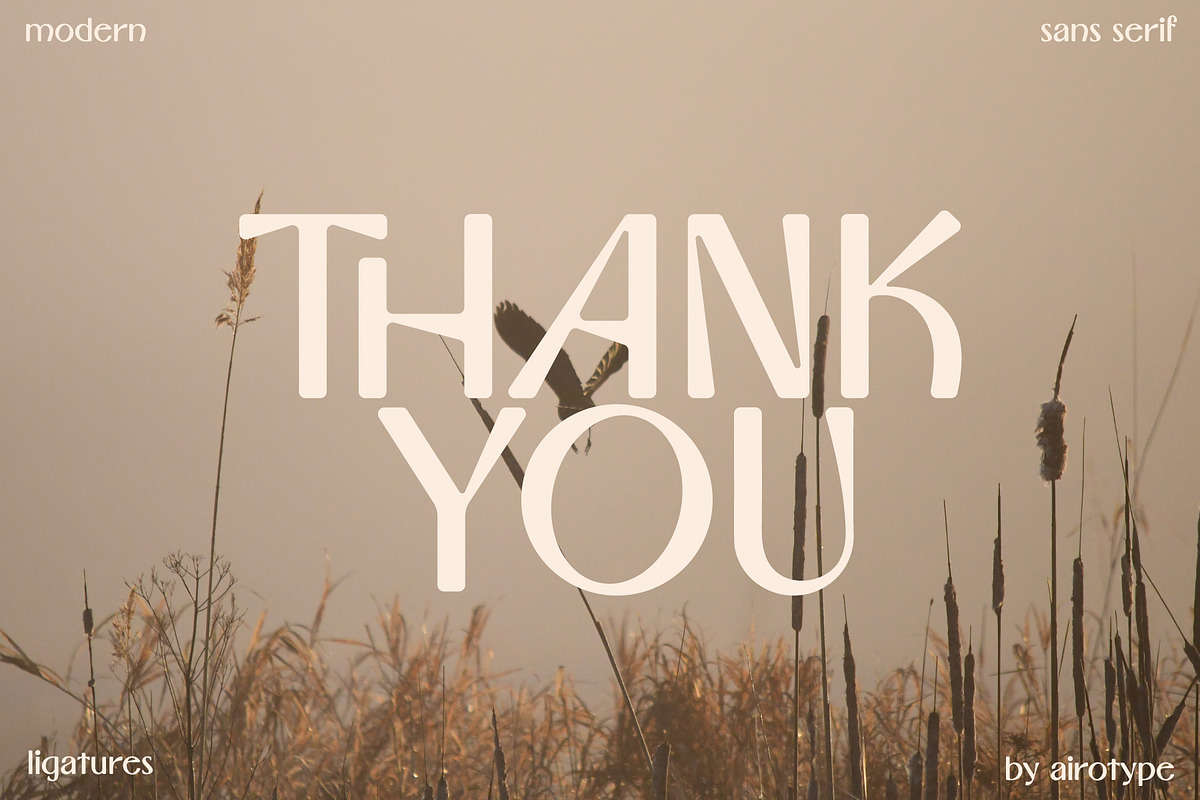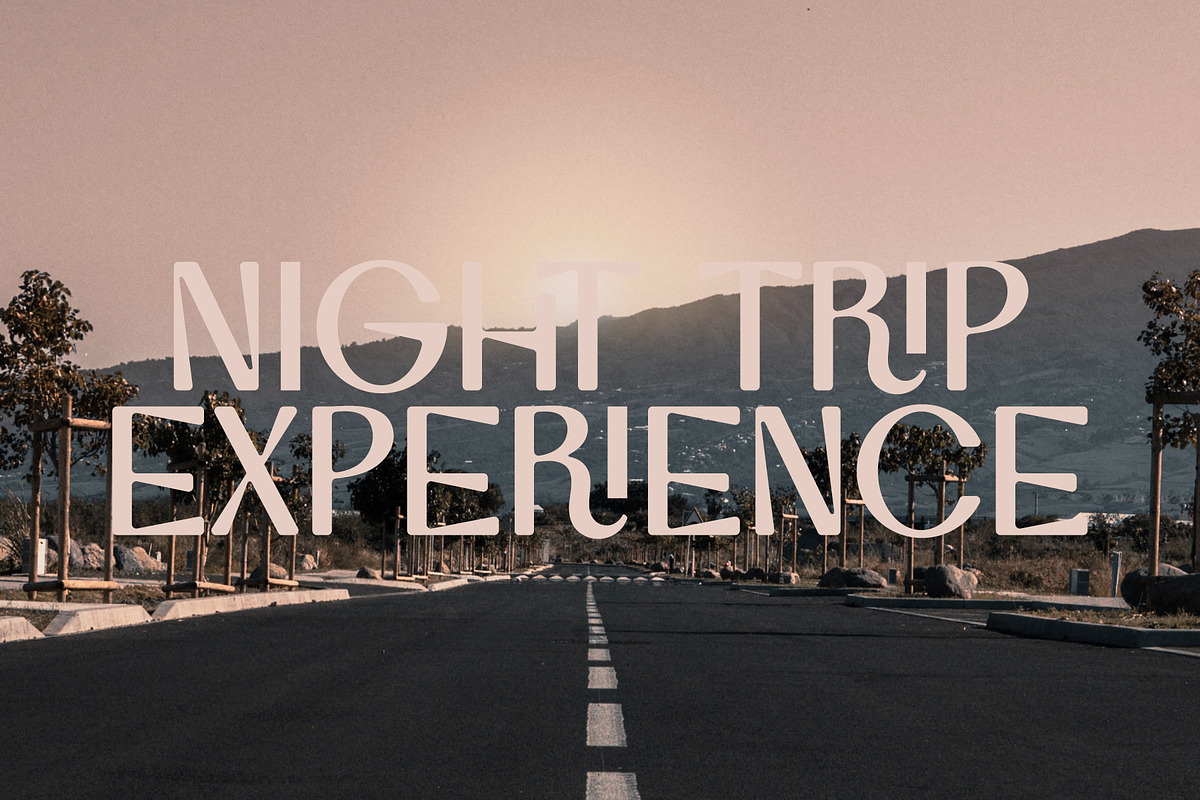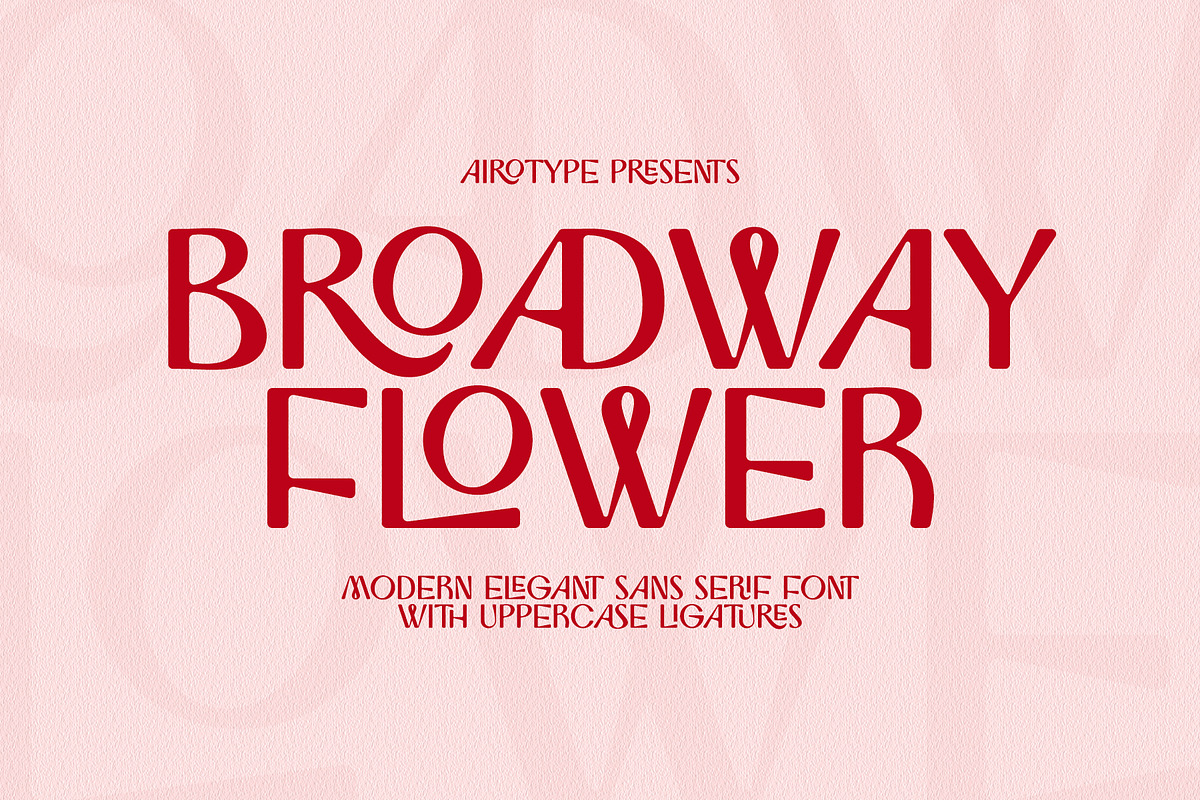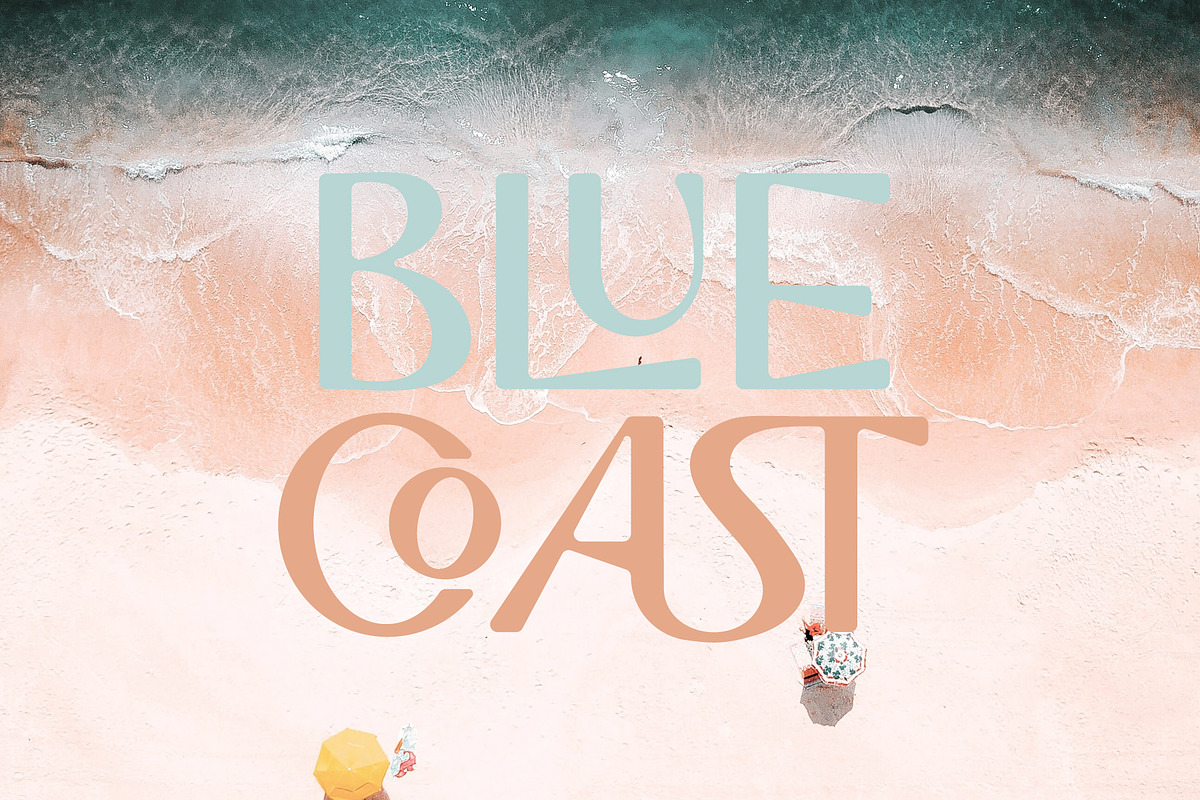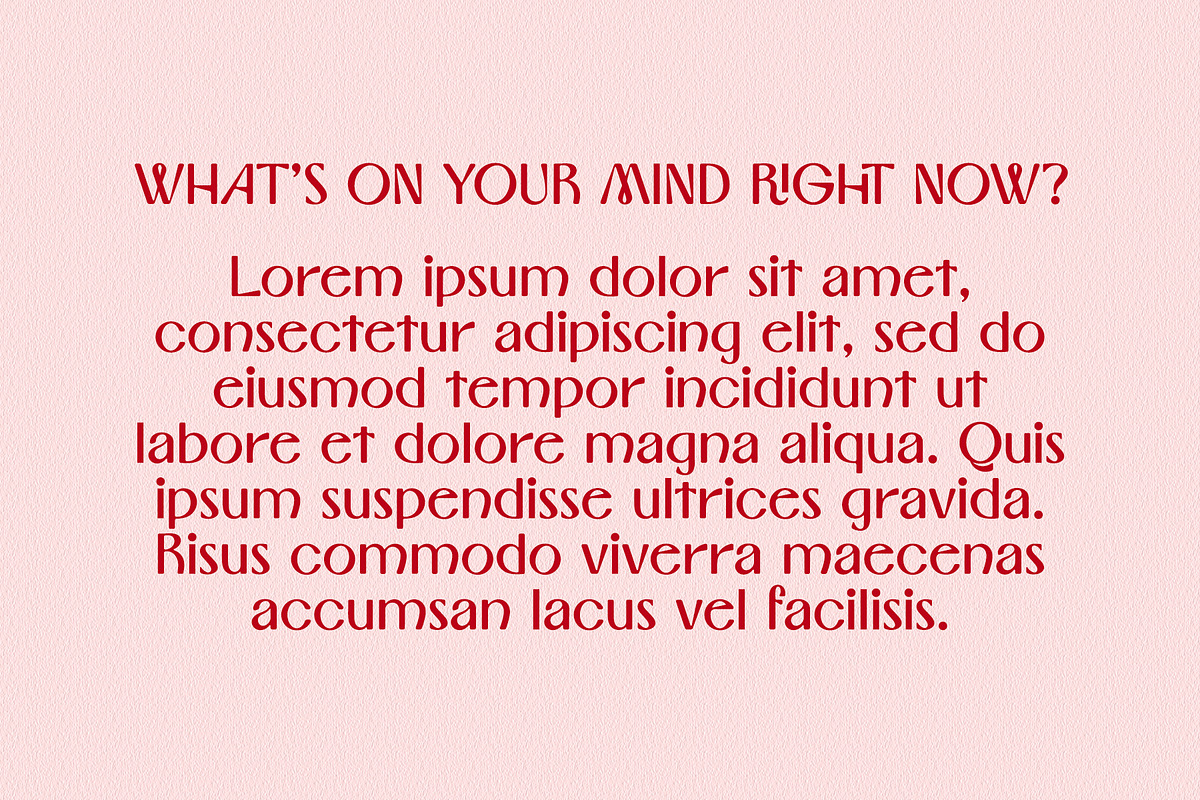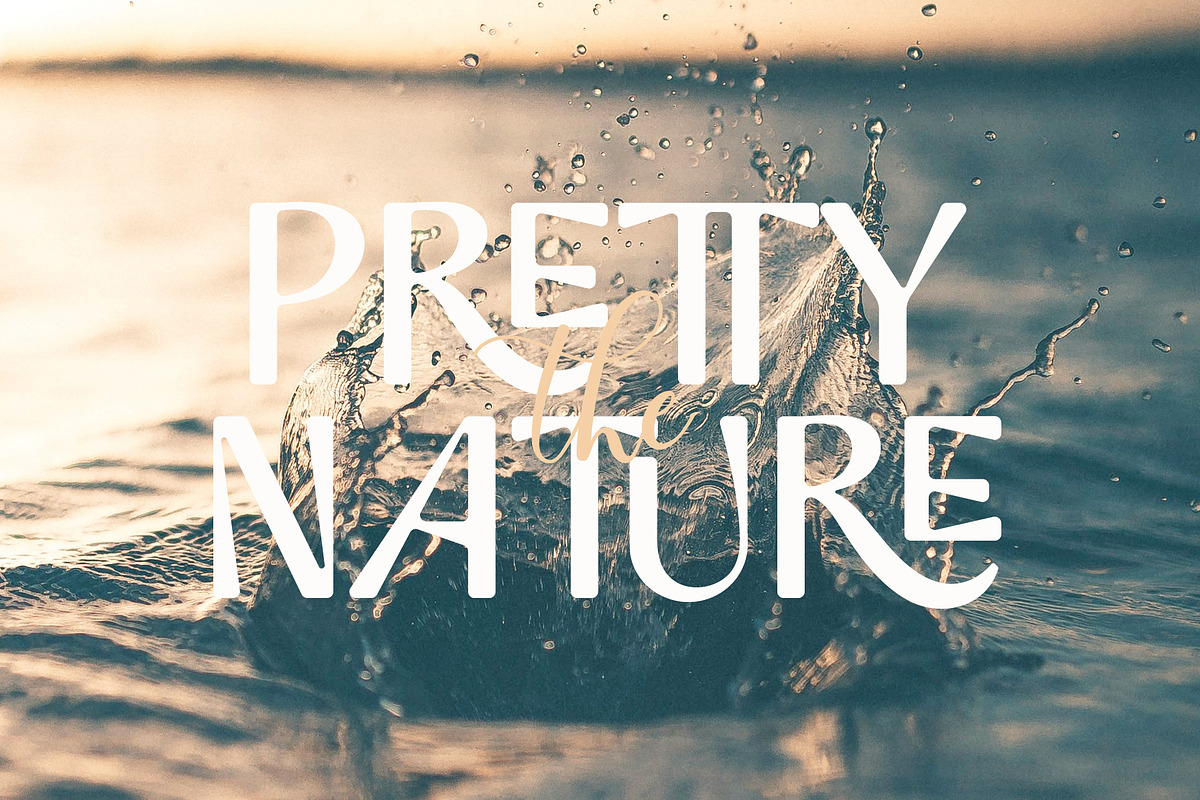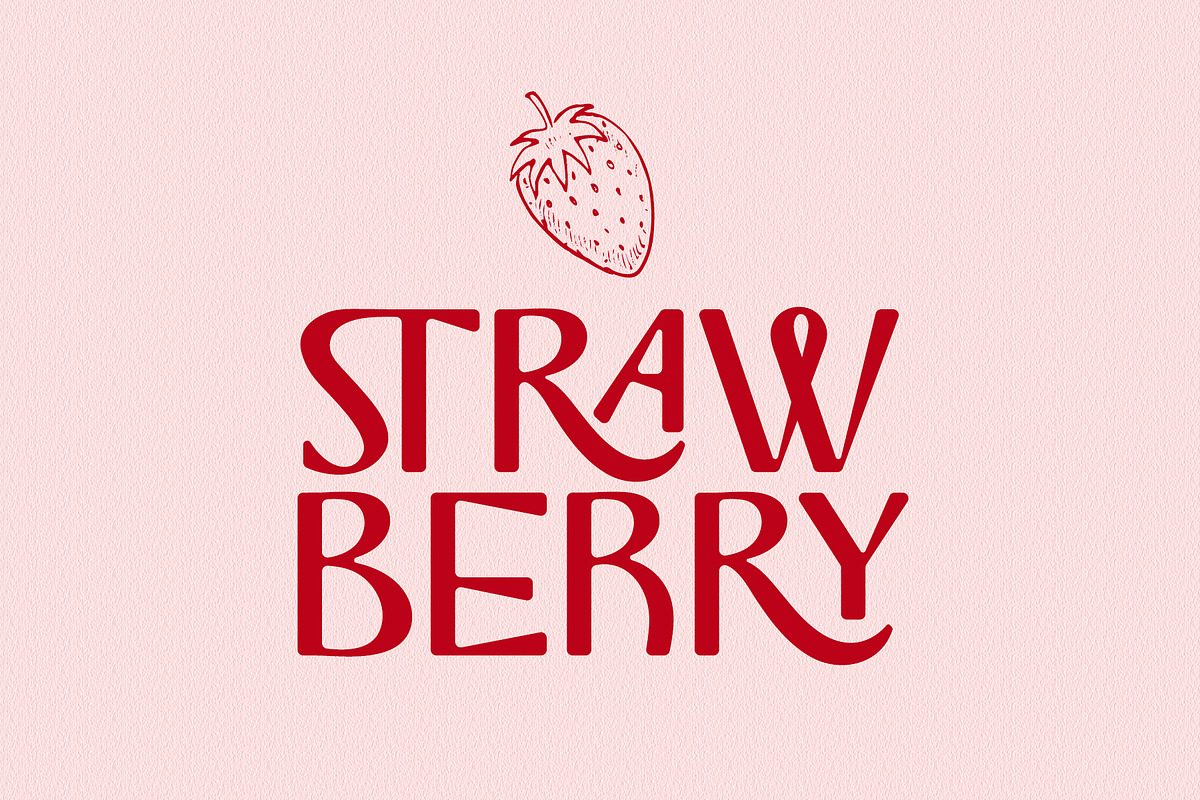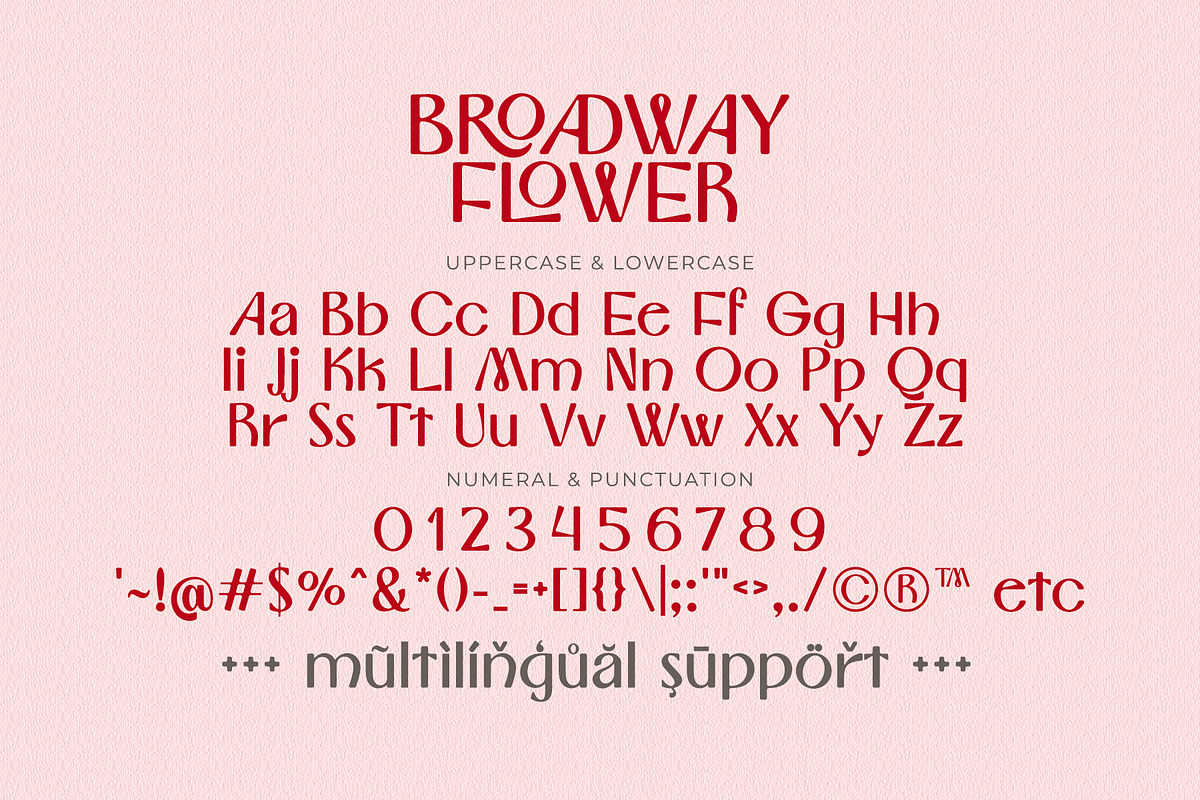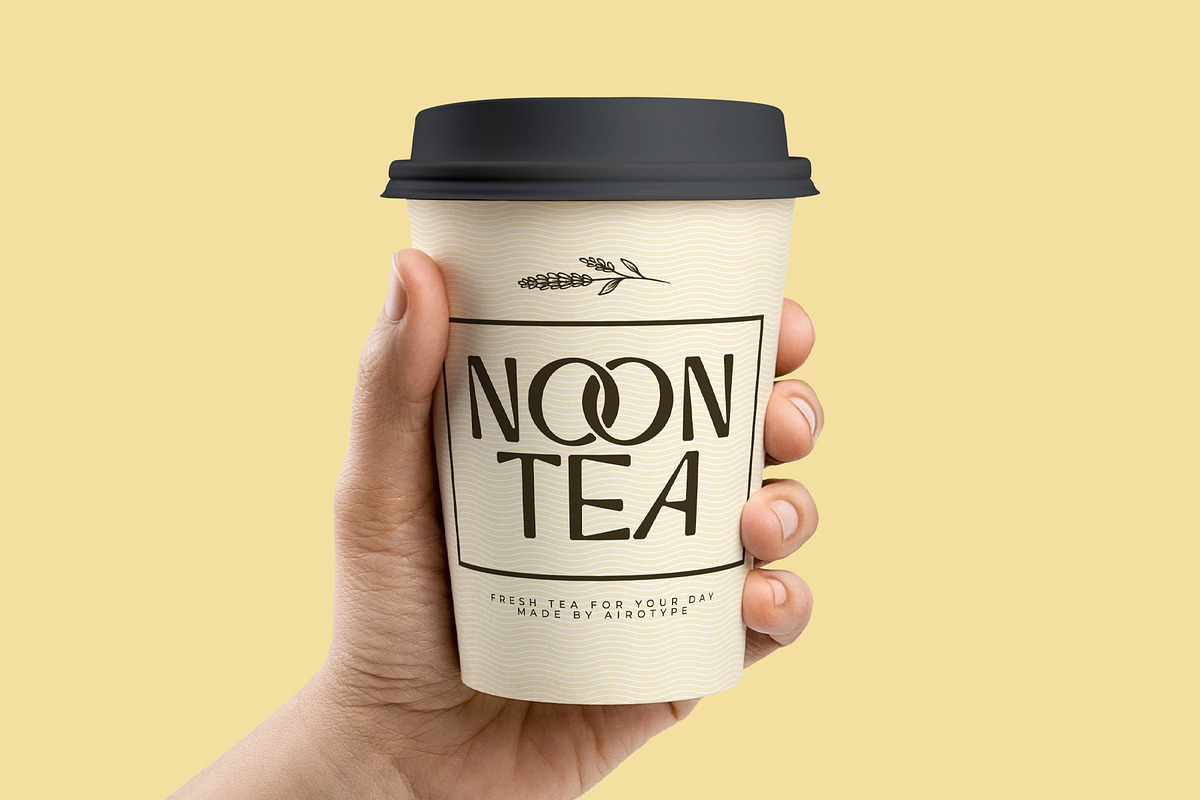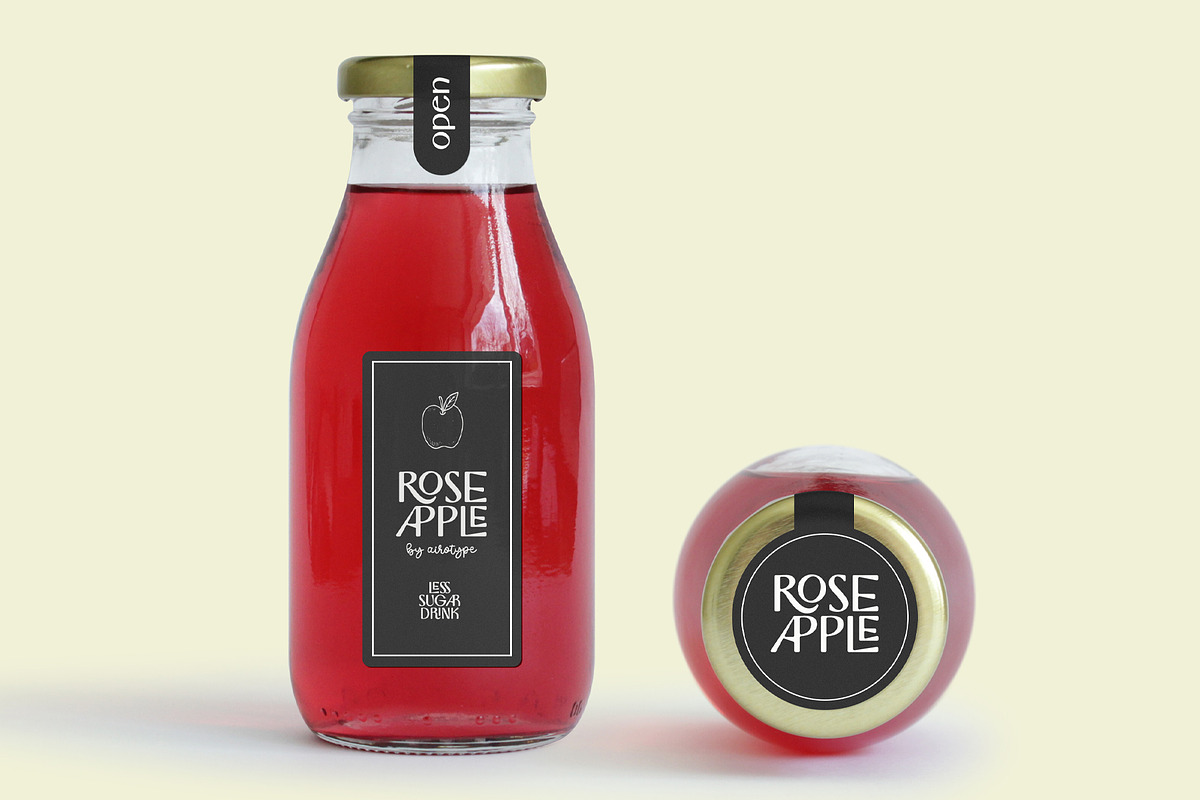
Broadway Flower Sans Serif Ligatures
Broadway Flower is modern and luxury sans serif. It has few ligatures for its uppercase, which gives lots of options in designing.
Broadway Flower has modern, bright, and simple vibes.
This font is stylish font for any projects with modern theme, such as logo, crafting, wedding invitation, poster, branding, photography, sticker, quotes, and many others.
- Uppercase and Lowercase (include uppercase ligatures style)
- Most Multilingual Accent